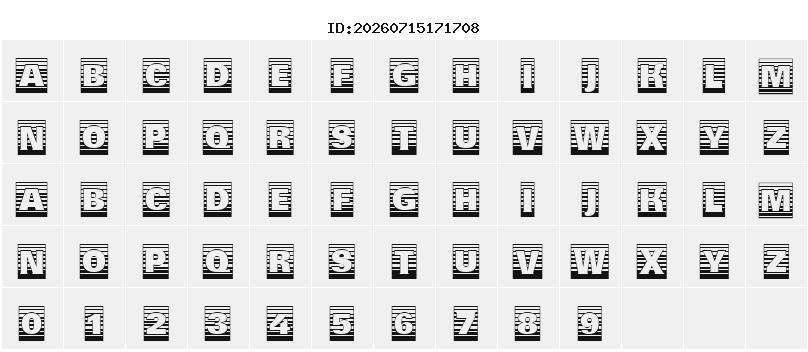
a_GroticTtlCmGdStrHv Preview
• Font Name: a_GroticTtlCmGdStrHv
• Font ID: a_GroticTtlCmGdStrHv
• Full Font Name: a_GroticTtlCmGdStrHv
• Version: 01.03
• PostScript Name: a_GroticTtlCmGdStrHv
About a_GroticTtlCmGdStrHv.ttf
a_GroticTtlCmGdStrHv.ttf is a modern, elegant sans-serif font designed for ultimate readability and visual harmony. Perfect for branding, headlines, web design, and print materials.